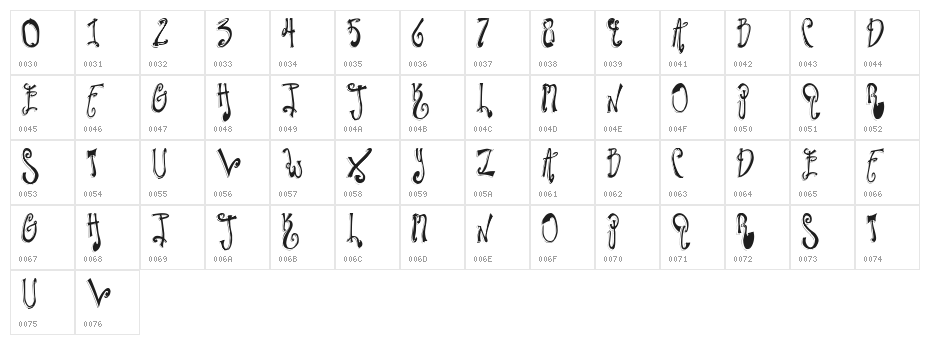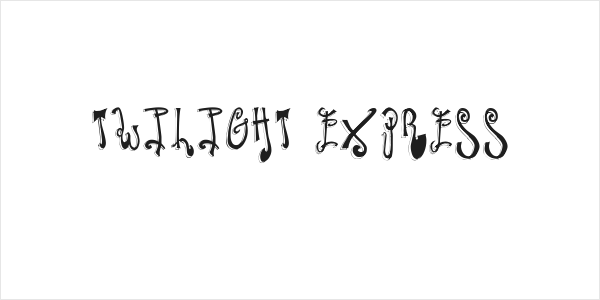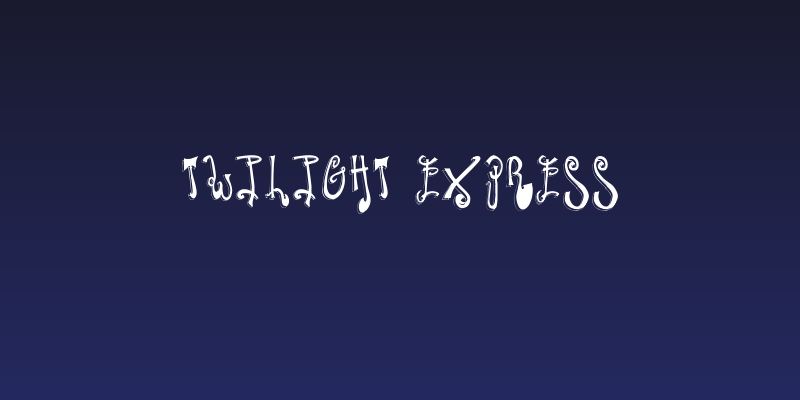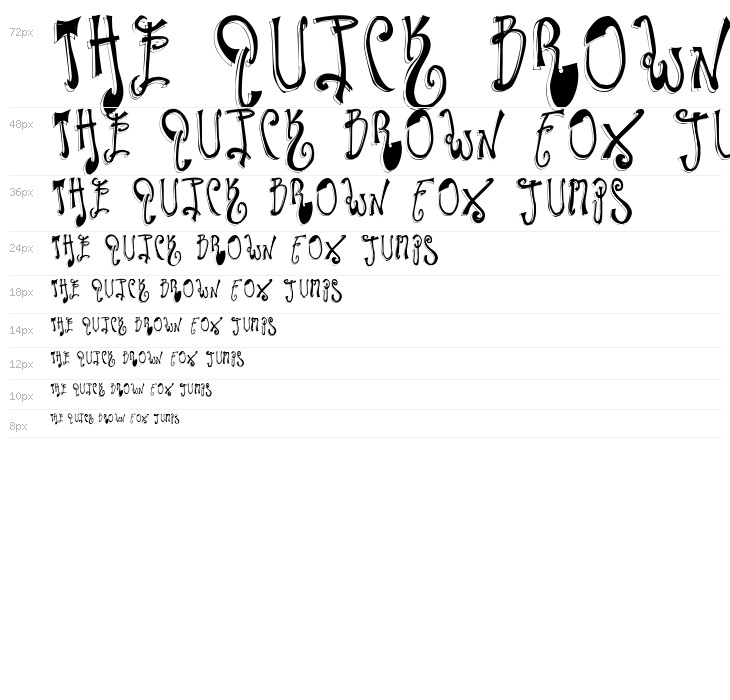
Twilight Express Font
Twilight Express Description
This font features a whimsical and artistic design, characterized by its playful curves and unique flourishes. Each letter is distinct, with exaggerated serifs and varying stroke widths that create a dynamic and engaging appearance. The uppercase letters are particularly bold and expressive, while the lowercase letters maintain a consistent style with a slightly more subdued flair. Numbers and special characters follow the same artistic theme, ensuring a cohesive look across all text. The font's intricate details and creative elements make it stand out, offering a sense of movement and creativity.
| Use Case | Logos, Posters, Invitations |
| Proposed Projects | Ideal for creative projects such as invitations, posters, and branding that require a distinctive and artistic touch. |